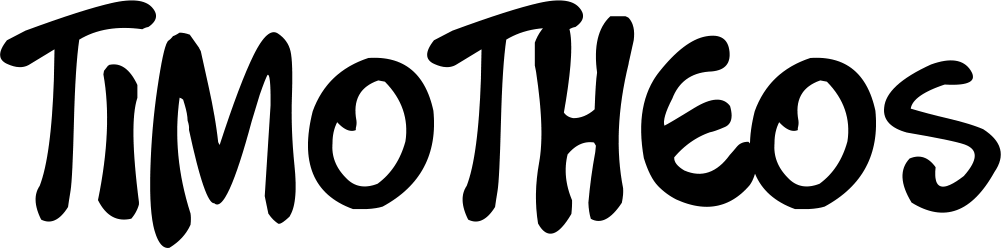
Timotheos Font
Designed byBlooguer
Timotheos is a cute font for creating a childish vibe. The designer used sloppy lines and not accurate shapes for the characters. This font can be a perfect choice for projects like cartoons, children’s storybooks, posters, etc. This awesome marker font offers you the uppercase of the alphabet, the numbers, and the punctuation marks.
created by the anonymous designer BLOOGUER from china